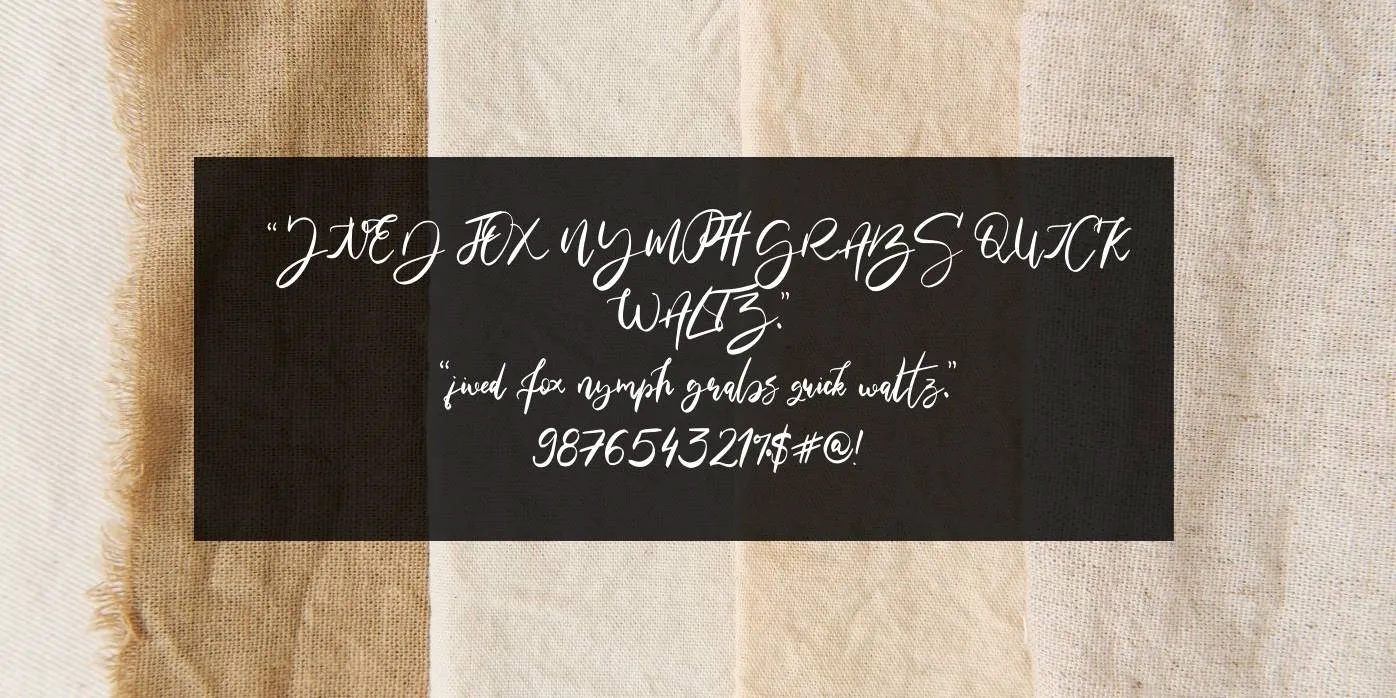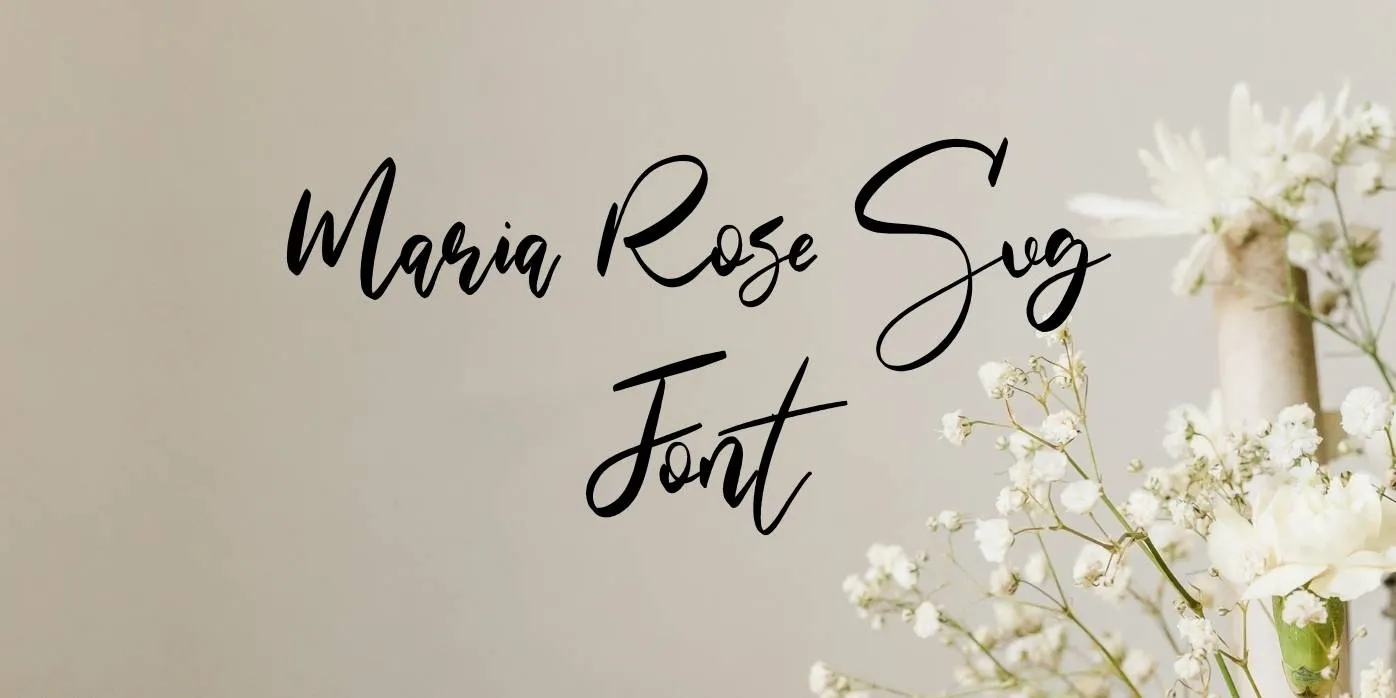
Maria Rose SVG Font
Today, we are going to introduce Maria Rose SVG Typeface. This classy typeface was developed by Silverstag. It belongs to the script font family. The best thing about this font is that it looks great on any device.
It is well specified for the CSS. The Maria Rose SVG Typeface has a very stylish design. It features a beautiful floral motif. The letters are also adorned with a touch of class.
This font would look great on invitations, greeting cards, and even websites. It is perfect for Adobe Photoshop. Another similar font which is bonfire font is perfect for different designs. Its unique hand letters give it a very personal look.